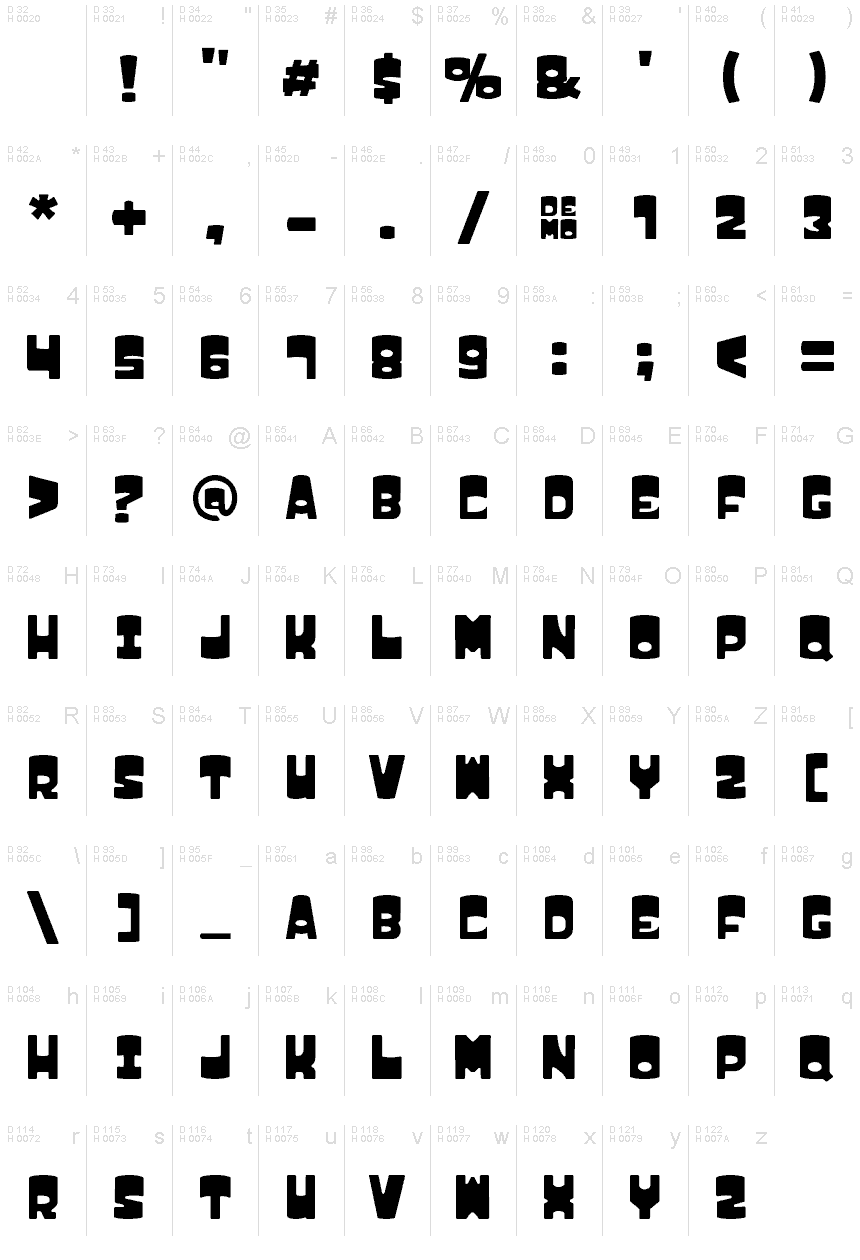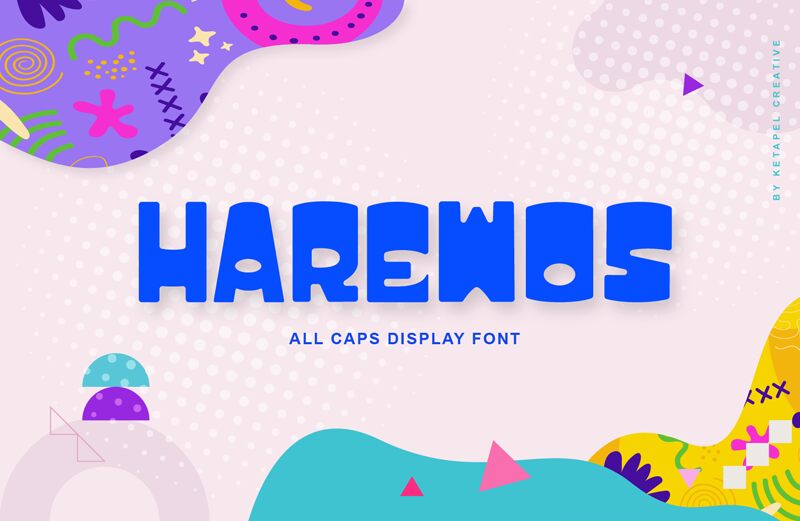
HAREWOS DEMO BOLD
Harewos Bold font by Ketapel Creative is a groovy display typeface. Its quirky and retro elements are wrapped up in an expanded style which makes all letters naturally stand out. This bold font has a lot to offer for anyone who wants an impactful typing presence that brings originality, uniqueness, and flexibility to cover any creative project.
This free display font fits into numerous designs like banners, posters, flyers, book covers, social media ads, websites, branding projects, quotes posters, or digital print files. It will also look good in online publications such as magazine covers or catalogs.